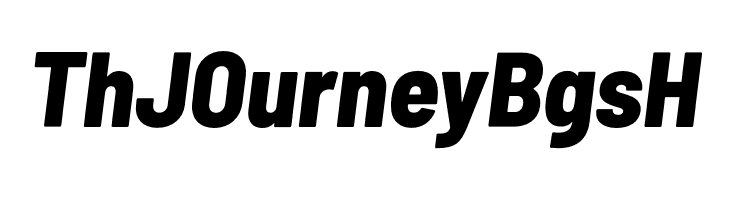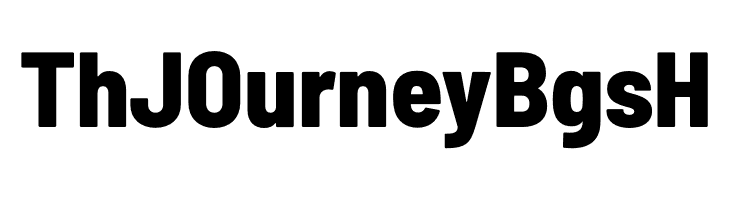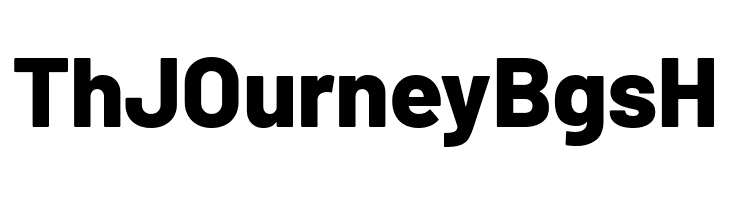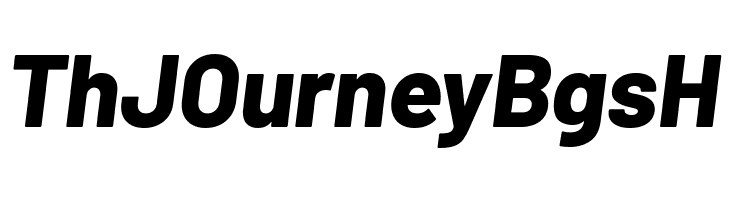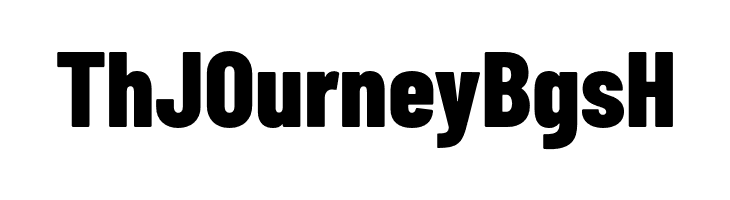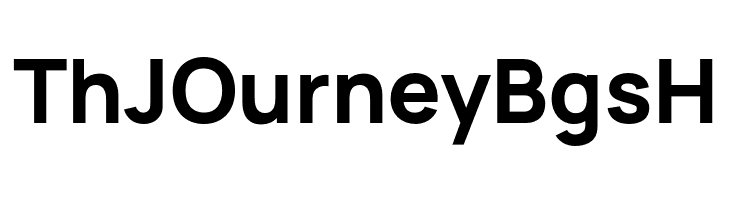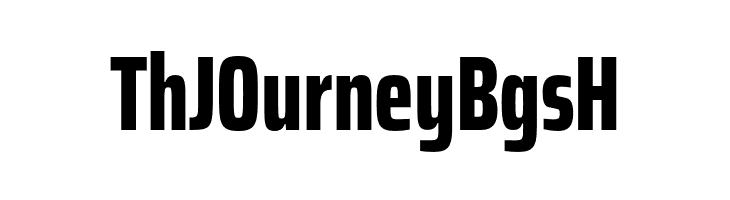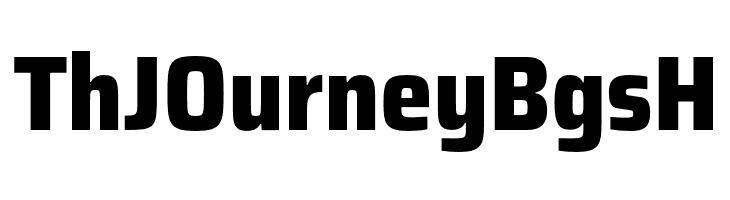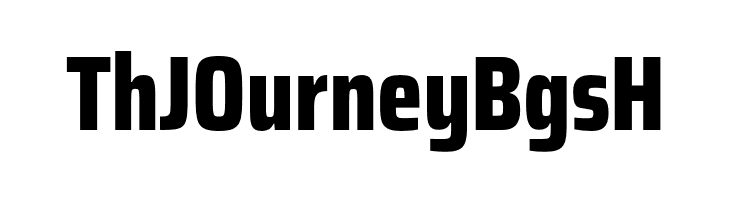
A bold, semi-condensed italic font with a modern and dynamic style.
A bold, semi-condensed sans-serif typeface with a modern and impactful design.
A bold, modern sans-serif typeface with a geometric structure.
A bold, italic typeface with a modern and dynamic style.
A bold, condensed typeface with a modern and impactful design.
A modern, geometric sans-serif typeface with uniform stroke widths.
A condensed, extra bold italic typeface with a modern and dynamic style.
A bold, condensed sans-serif font with a modern and assertive style.
A bold, semi-condensed typeface with a modern and impactful style.
A bold, condensed typeface perfect for impactful headlines.